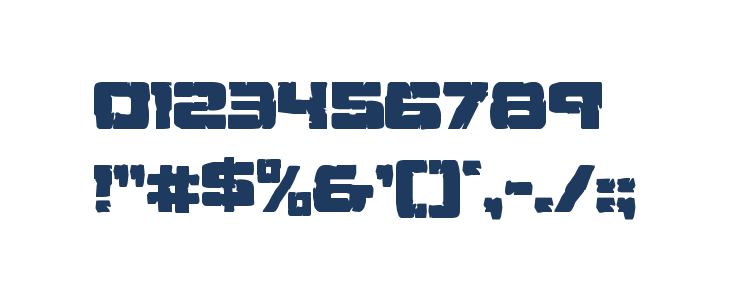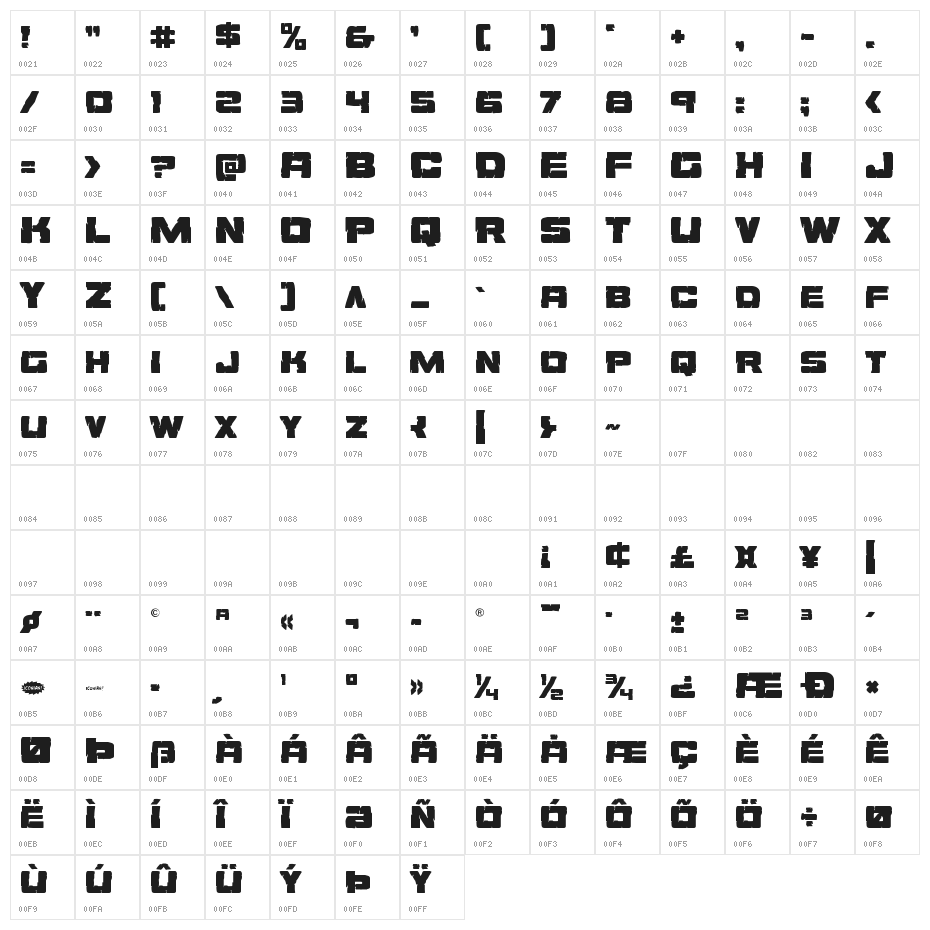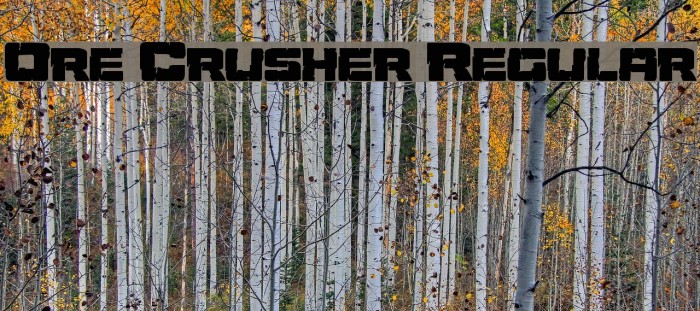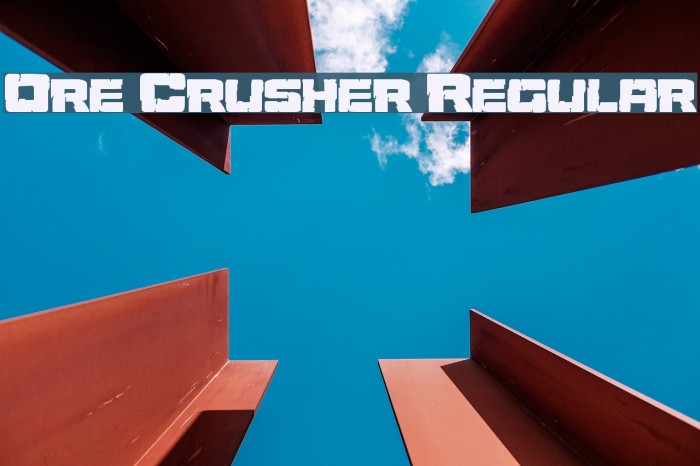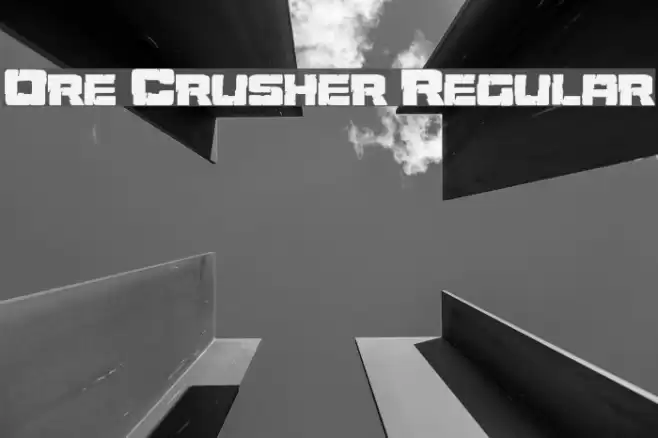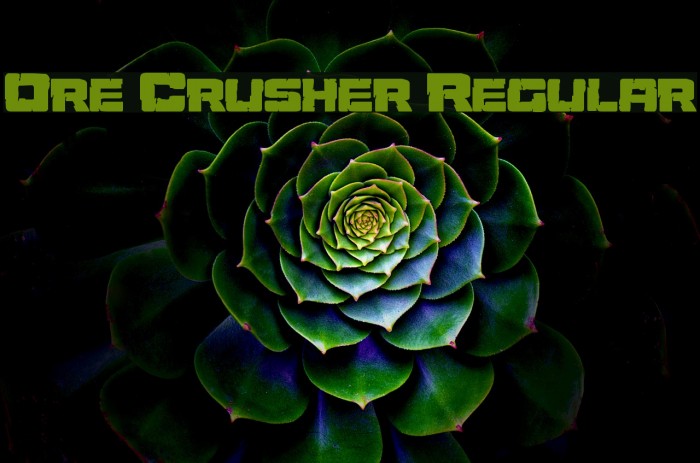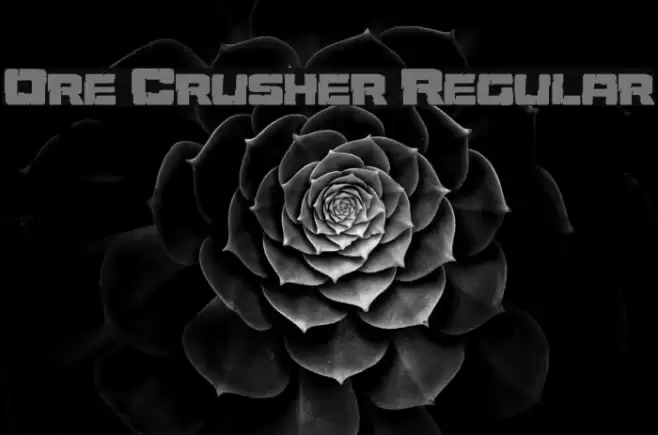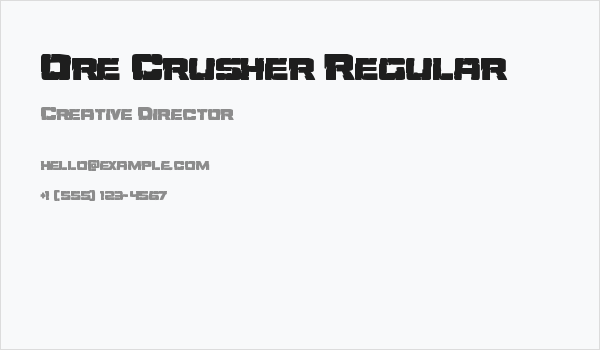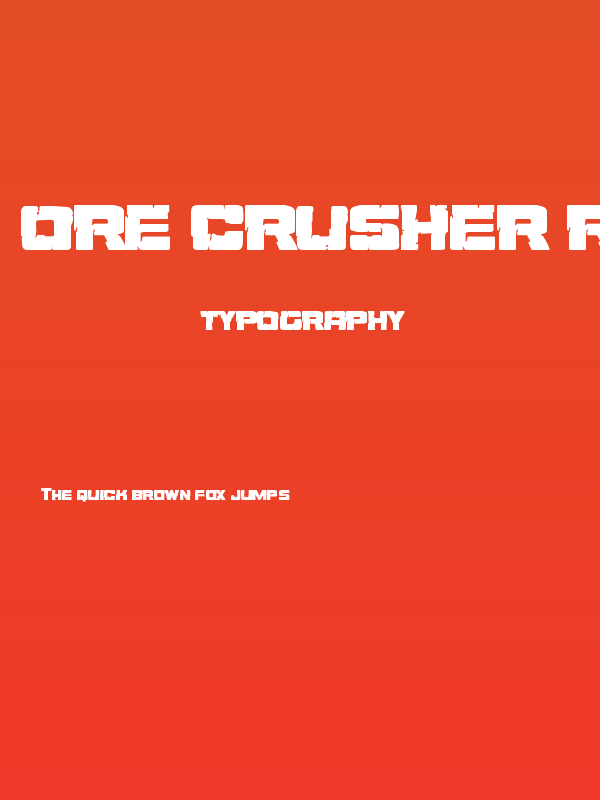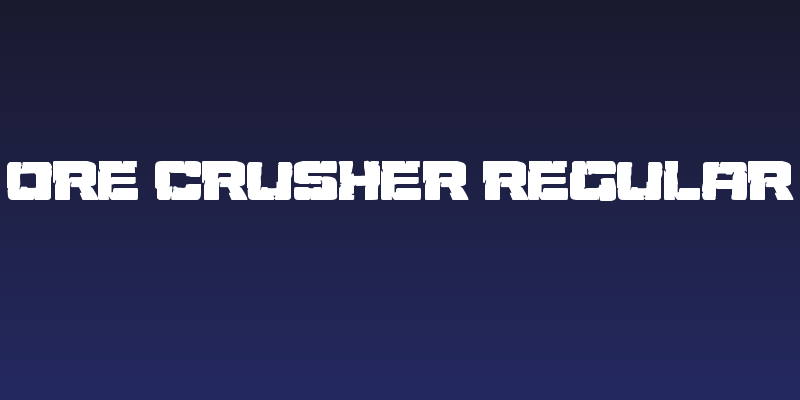
Ore Crusher Regular Font
Ore Crusher Regular Description
This font features a bold and rugged design, characterized by its distressed, industrial appearance. The characters have a blocky structure with rough, uneven edges, giving it a raw and gritty feel. The uppercase letters are prominent and commanding, while the numerals and special characters maintain the same robust style. The font's unique texture suggests a worn, weathered look, reminiscent of machinery or urban decay. It is highly impactful and would stand out in any design that requires a strong, edgy aesthetic.
Overall StyleIndustrial, Rugged, Edgy
Proposed ProjectsIdeal for projects that require a strong, industrial aesthetic such as posters, album covers, branding for construction or machinery companies, and video game graphics.